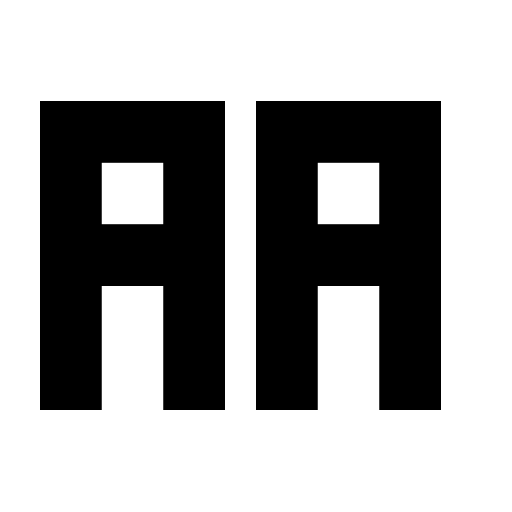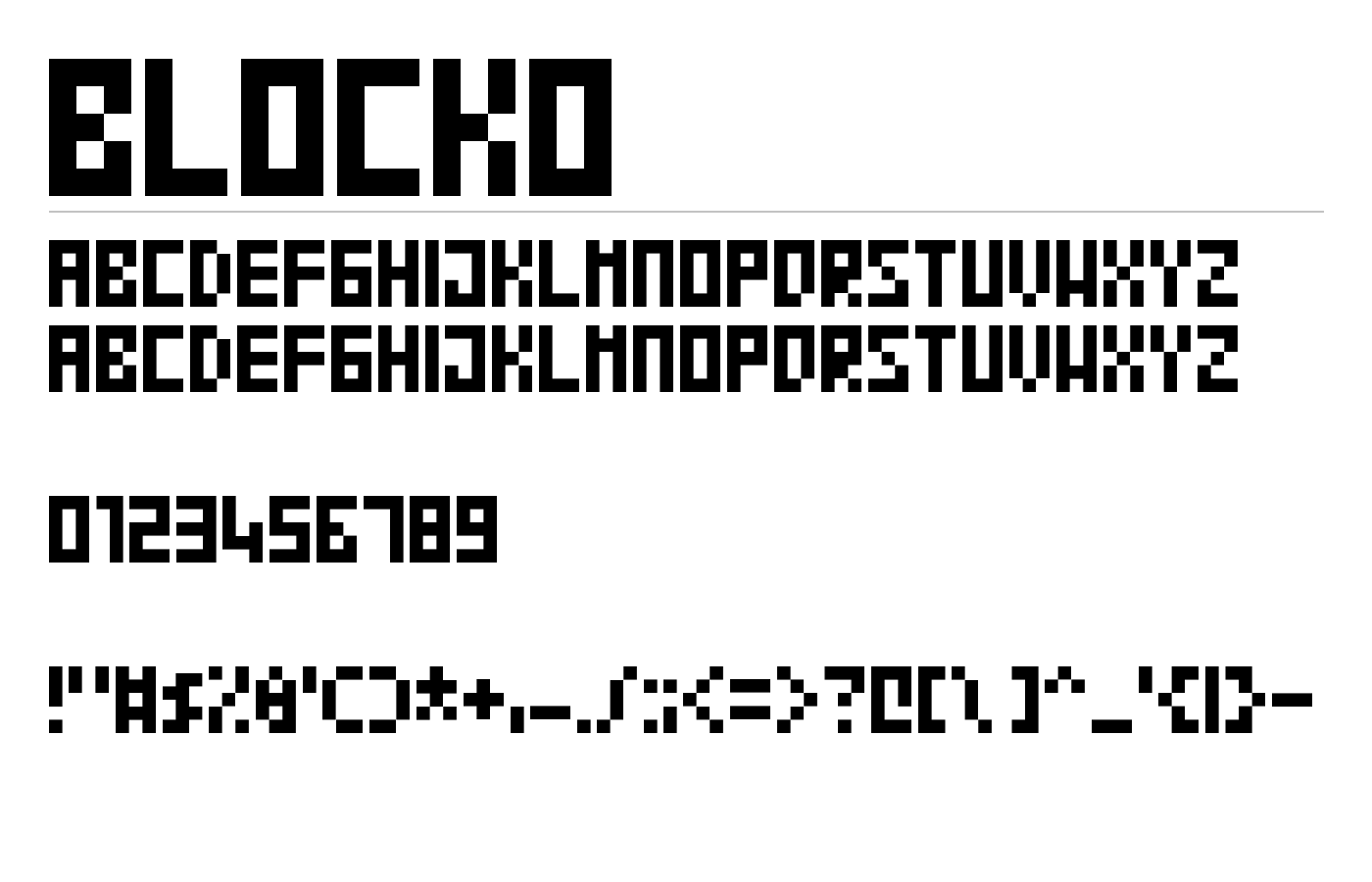
Blocko is a bold, geometric sans serif font with a strong, blocky appearance that evokes a pixelated or digital style. Its uniform stroke weight, squared letterforms, and tight spacing give it a modern, tech-inspired feel perfect for headlines, logos, or designs needing a futuristic, arcade-like vibe. This font works well in creative projects where a striking, tech-savvy look is desired.
Blocko Font